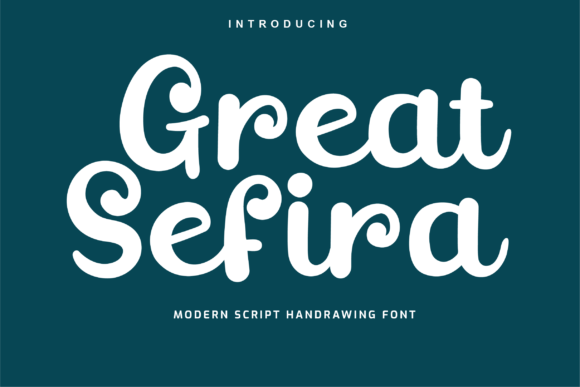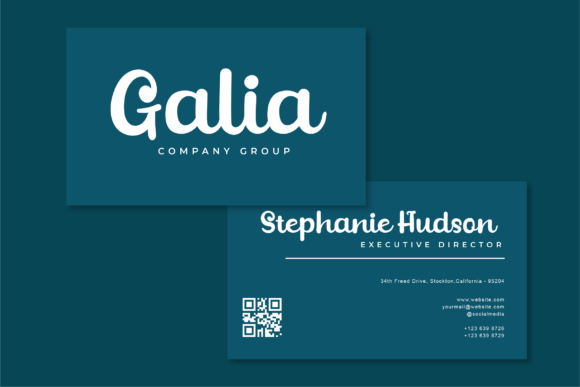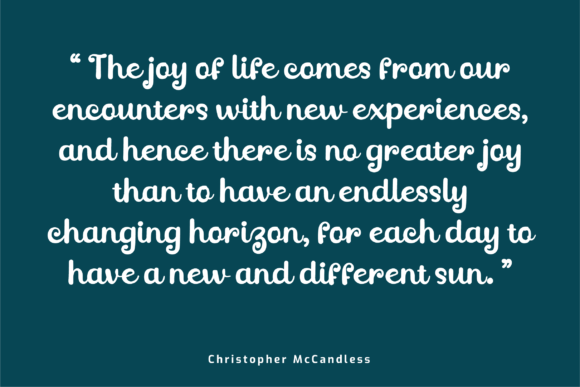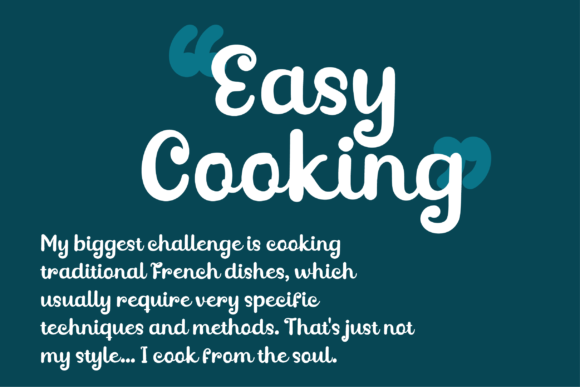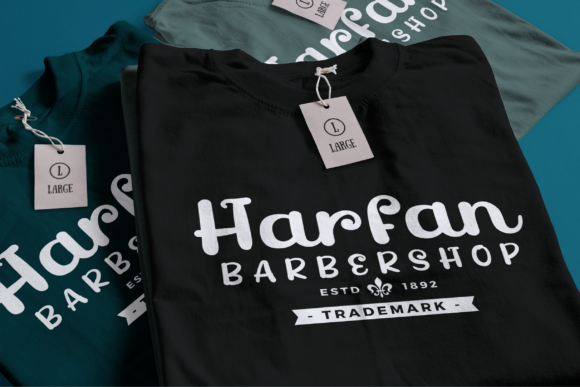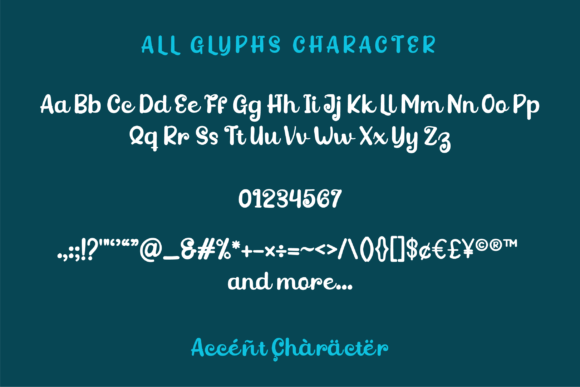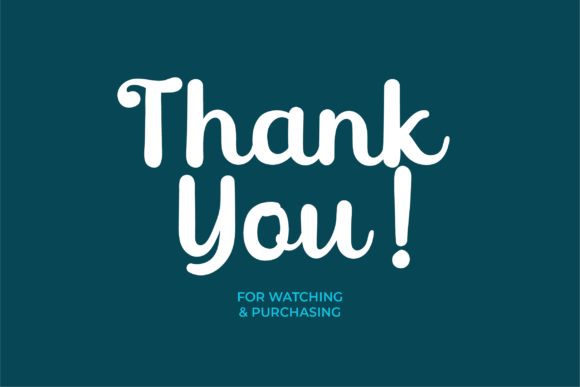
Great Sefira Font
About Great Sefira Font
Great Sefira results out of a stunning pairing of a brush pen and pencil that makes it look incredibly endearing and authentic. It will elevate a wide range of design projects to the highest level, be it branding, headings, wedding designs, invitations, signatures, logos, labels, and much more!